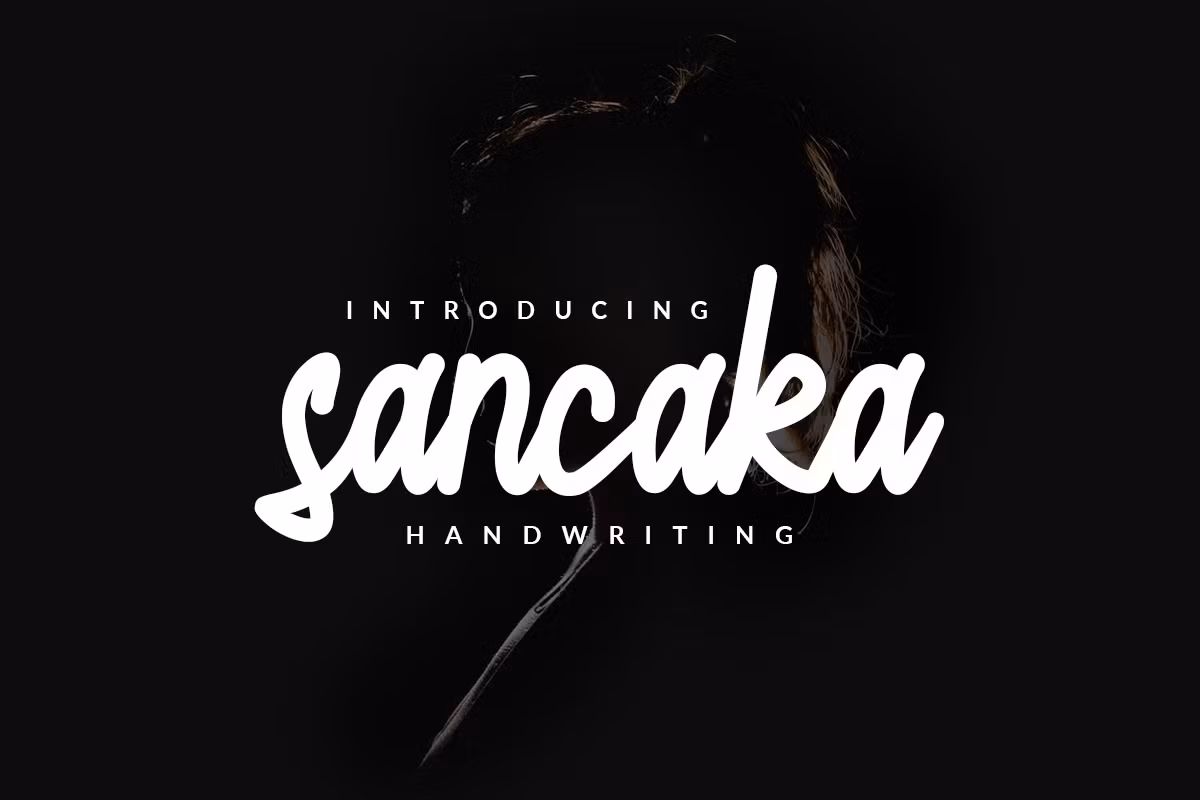
Sancaka Handwriting Free Download
Sancaka Handwriting Font Free Download
Sancaka Handwriting Font Free Download is a casual and authentic handwritten typeface that brings a personal, relaxed feel to your designs. With its natural flow, organic strokes, and slightly playful vibe, Sancaka is perfect for journals, greeting cards, quotes, lifestyle blogs, social media graphics, and branding projects that need a touch of warmth and sincerity.
Designed to mimic real handwriting, Sancaka strikes a balance between charm and legibility—making it a great choice for both digital and print formats where a human touch matters.